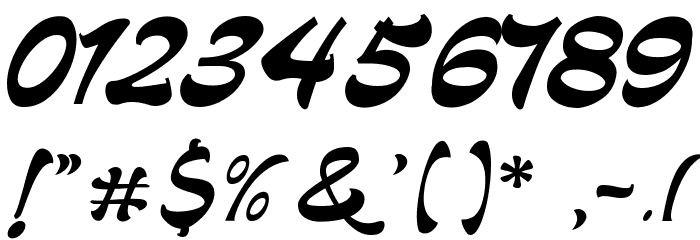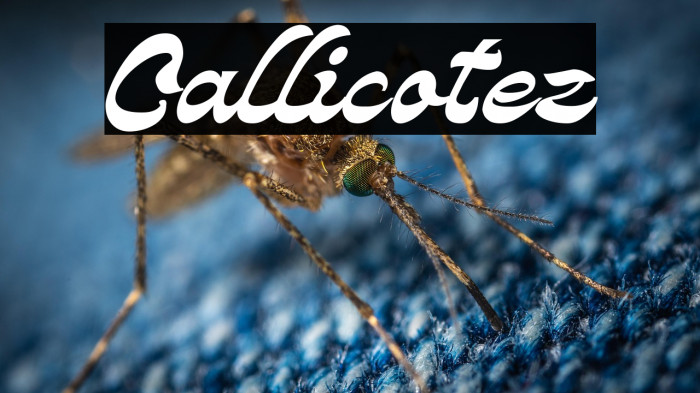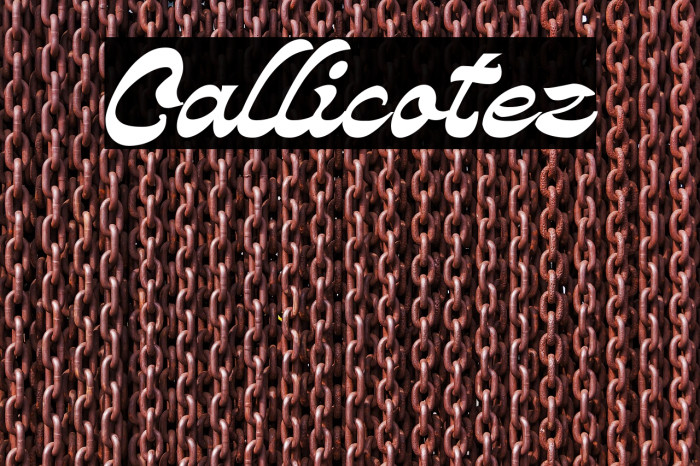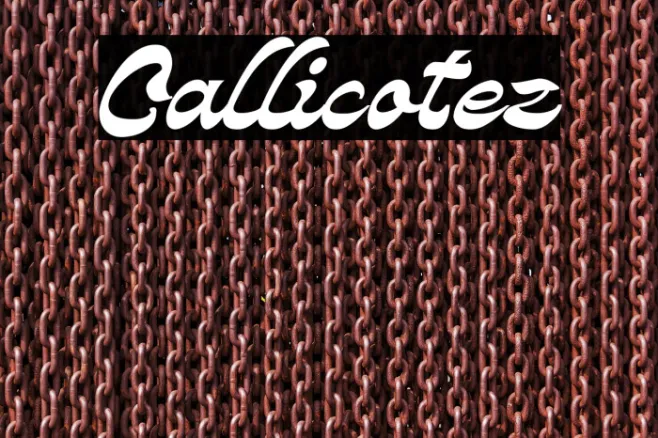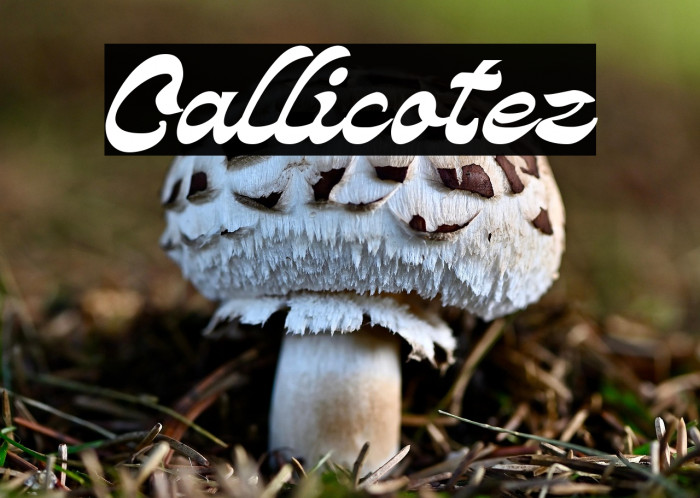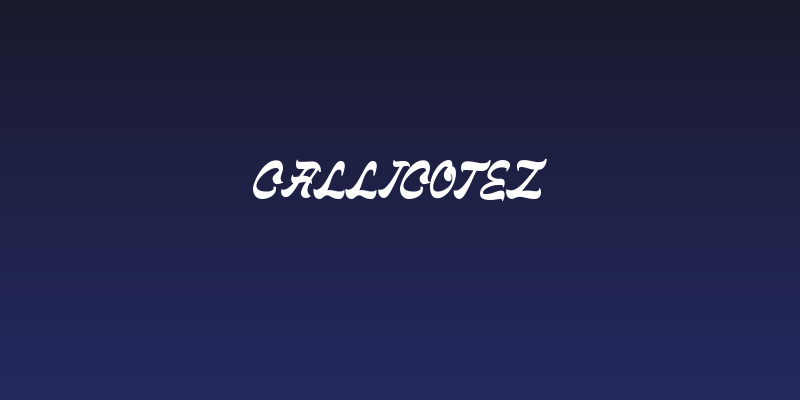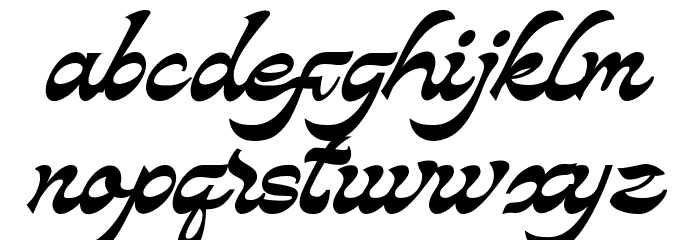
Callicotez Font
Callicotez Description
This font features a bold, flowing script style that exudes elegance and sophistication. The characters are interconnected with smooth, sweeping curves, giving it a dynamic and fluid appearance. The uppercase letters are ornate, with intricate details that add a touch of flair, while the lowercase letters maintain a consistent rhythm and balance. The numerals are equally stylized, matching the overall aesthetic of the alphabet. Special characters are designed with the same attention to detail, ensuring a cohesive look across all glyphs. This font is perfect for projects that require a touch of class and creativity.